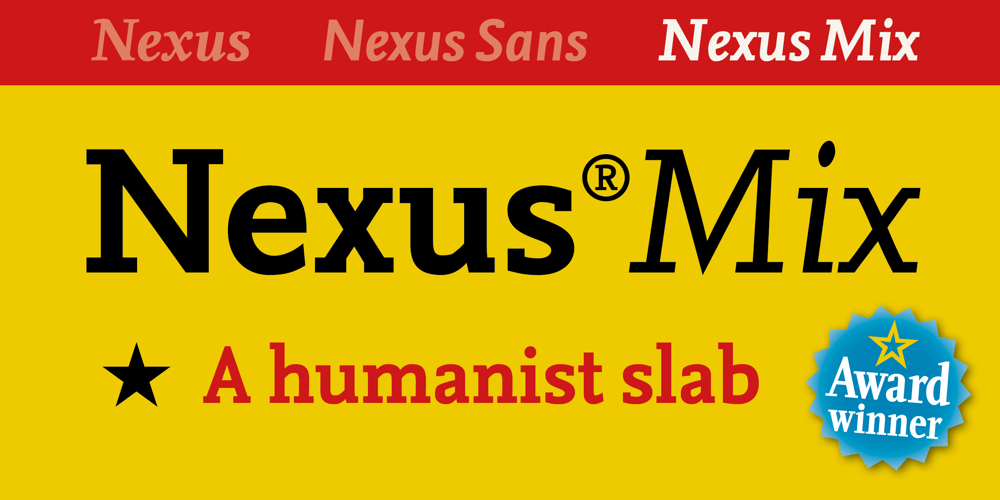
Nexus Mix Pro Font Family was designed by Martin Majoor and published by Martin Majoor. Nexus Mix Pro contains 4 styles and family package options. Nexus (2004) consists of three matching variants – a serif, a sans and a slab – which makes it a highly versatile typeface. Nexus started as an alternative to Seria, a typeface Majoor had designed some 5 years earlier. But soon the design developed into a new typeface, with numerous changes in proportions and in details and with a redrawn italic. Besides the three connected versions (Nexus Serif, Nexus Sans, Nexus Mix) Majoor designed a monospaced version called Nexus Typewriter. The Nexus family is a workhorse typeface system like Scala, with features such as small caps in all weights, four different sorts of numbers and an extensive set of ligatures. All fonts in the Nexus family come in regular, italic, bold and bold italic. Free bonus: there are more than 100 elegant Swash italics and dozens of arrows and other icons. The Nexus family was awarded the First Prize at the Creative Review Type Design Awards 2006.